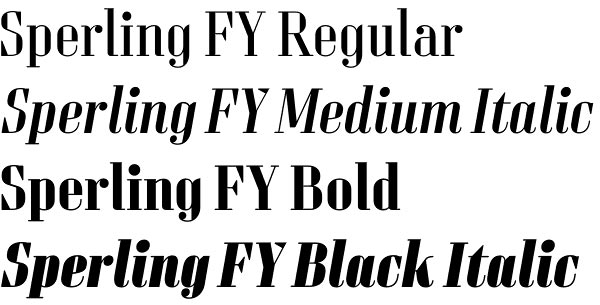
Sperling FY font
Sperling FY font by Jan Dominik Gillich and Alisa Nowak (Fontyou type foundry) is a condensed high-contrast geometric Serif family with prominent decorative nature. The font is characterized by its long vertical edge-like serifs. Its big i-dot as well as some other deliberately naive disproportions like the W are wonderful signs to identify Sperling FY. The accompanying italic style illustrates well designed creative forms like the k or the z. Sperling FY font family comes in 8 eight styles – four weights (from Regular to Black) and their italics.
Sperling FY font sports a good legibility in small size, so you can use it for editorial texts in magazines. You can take great pleasure by using it in poster size as well. Sperling FY font offers plenty of OpenType options, too.
Sperling FY was co-created by Jan Dominik Gillich & Alisa Nowak at the Fontyou Team, the first collaborative type foundry, which offers original fonts and type vectors of high aesthetic and technical quality. See also their immense collection of fonts: Suzee FY font, Saya FY font, Ennio FY font, Serafine FY font, Klaus FY font etc.
Designers: Jan Dominik Gillich, Alisa Nowak
Publisher: Fontyou